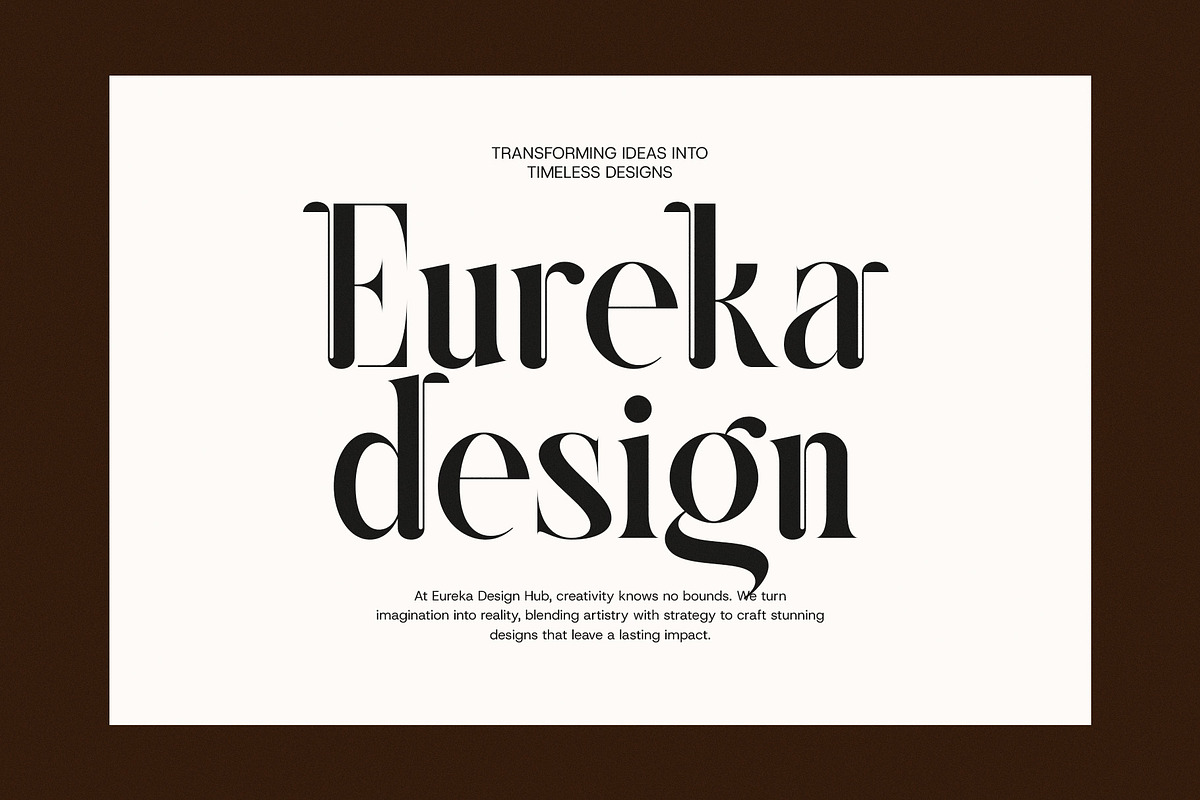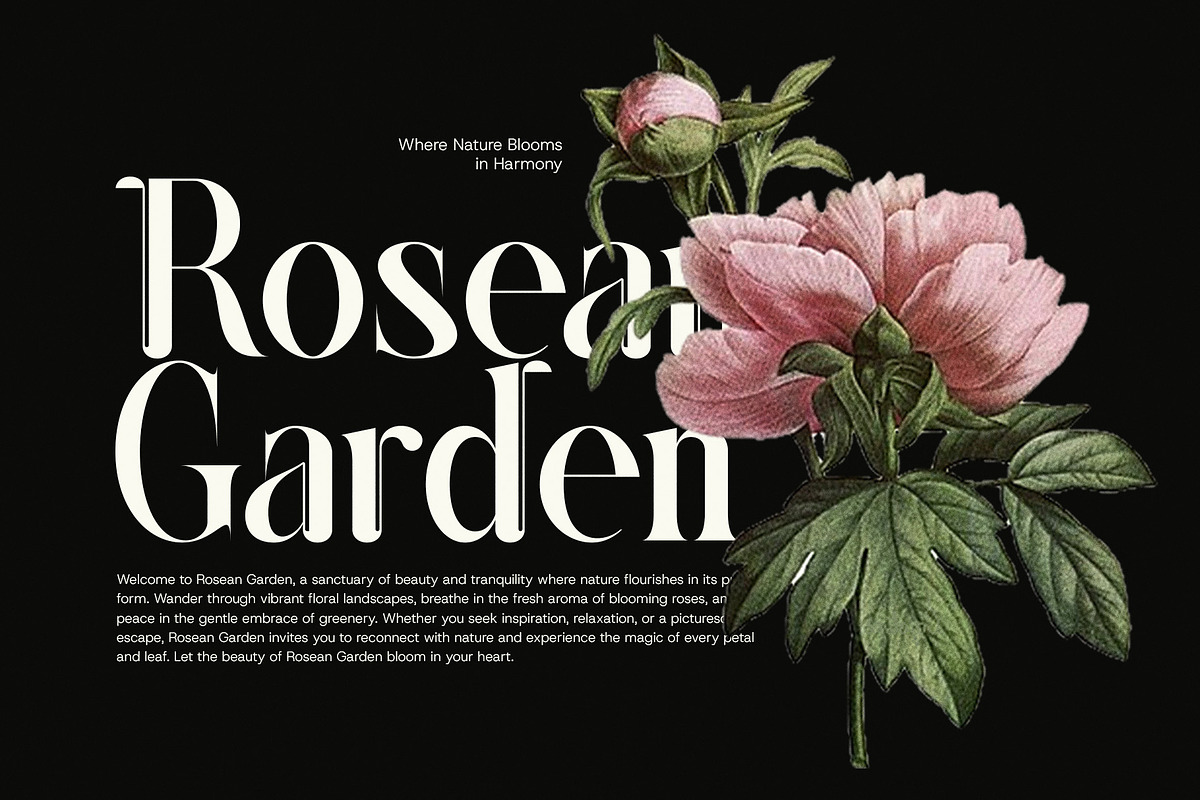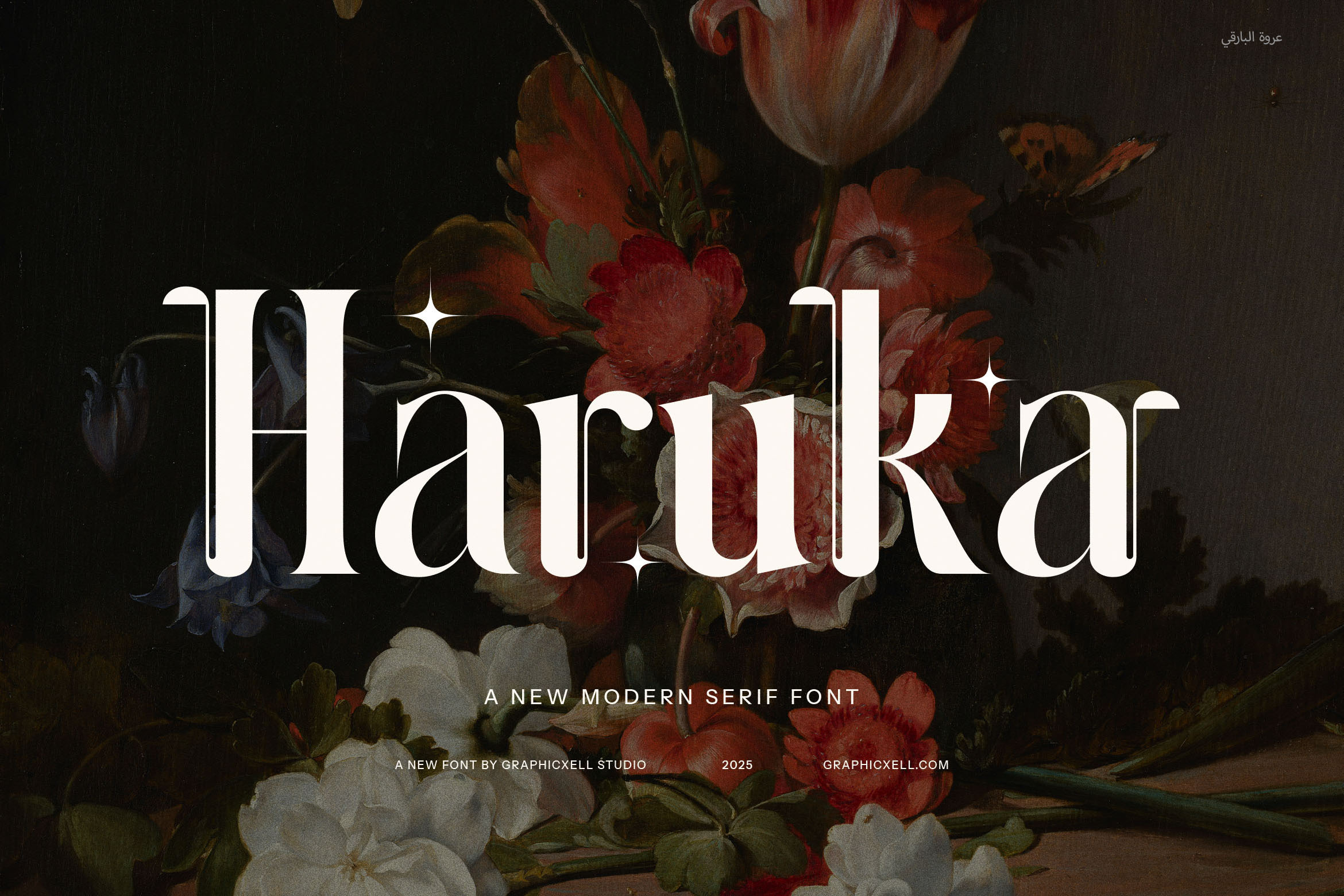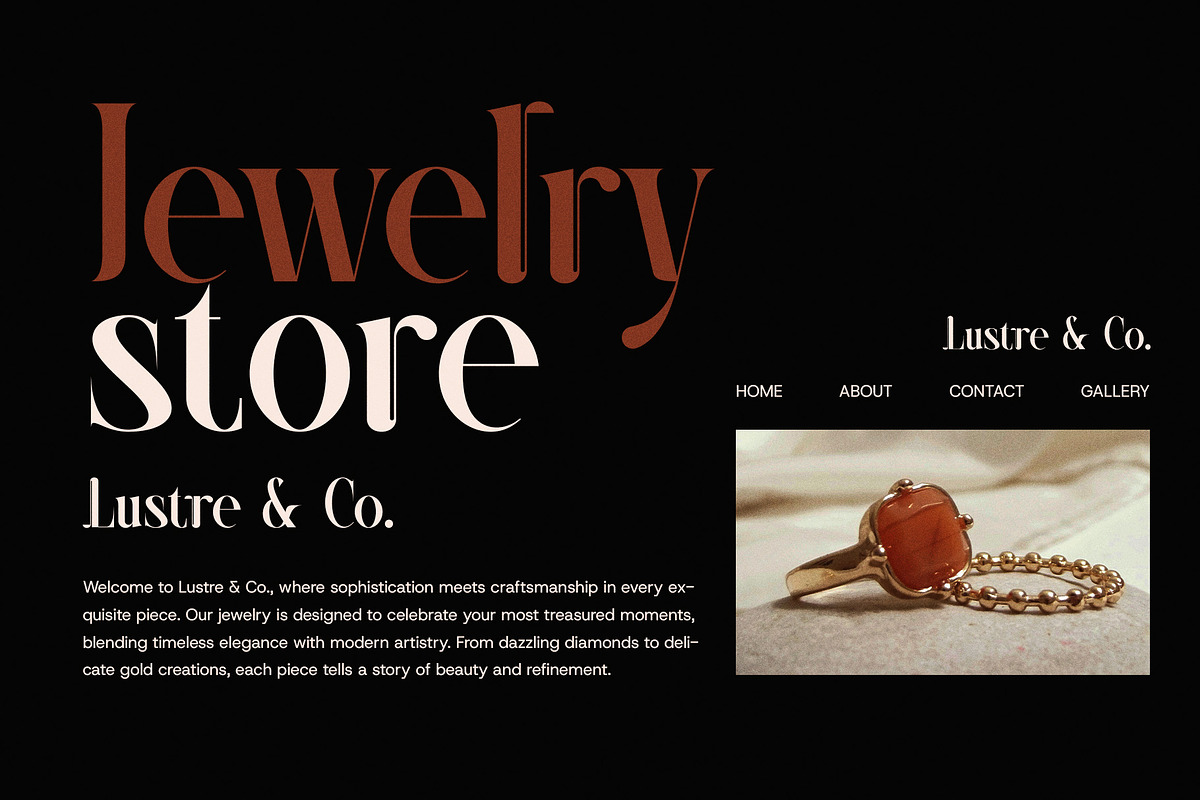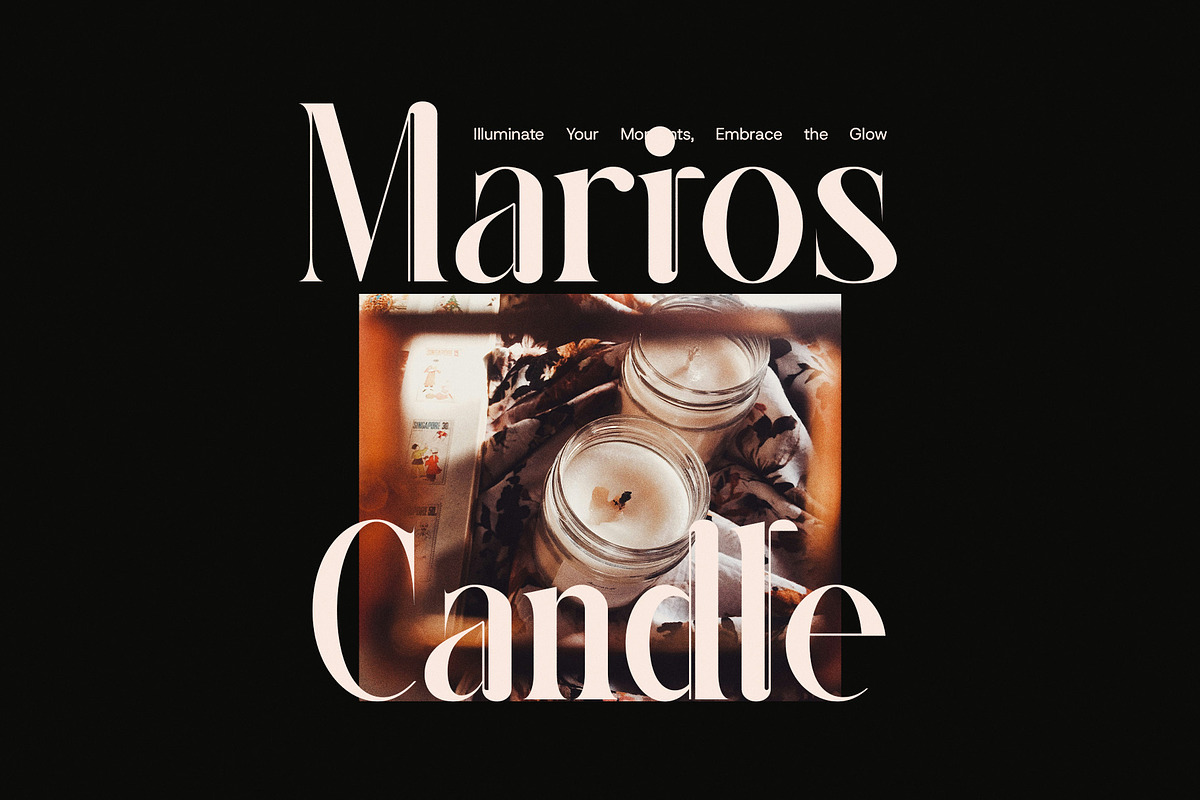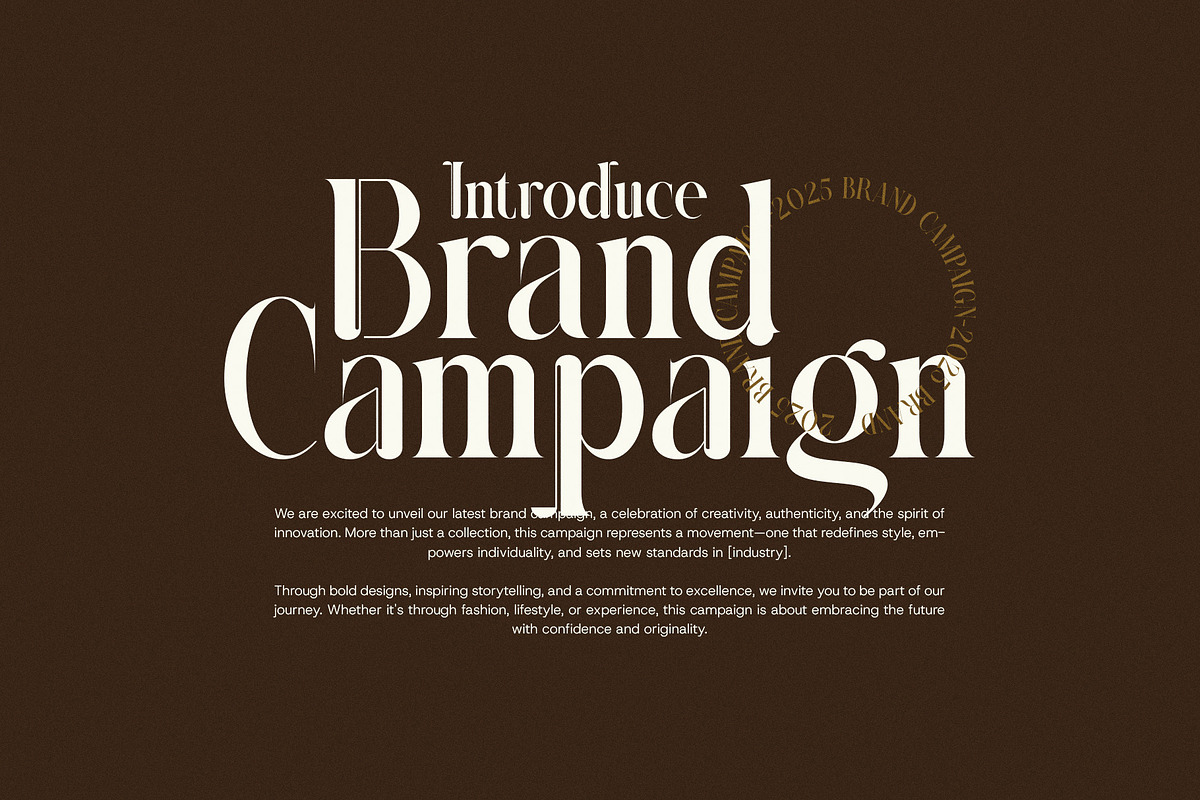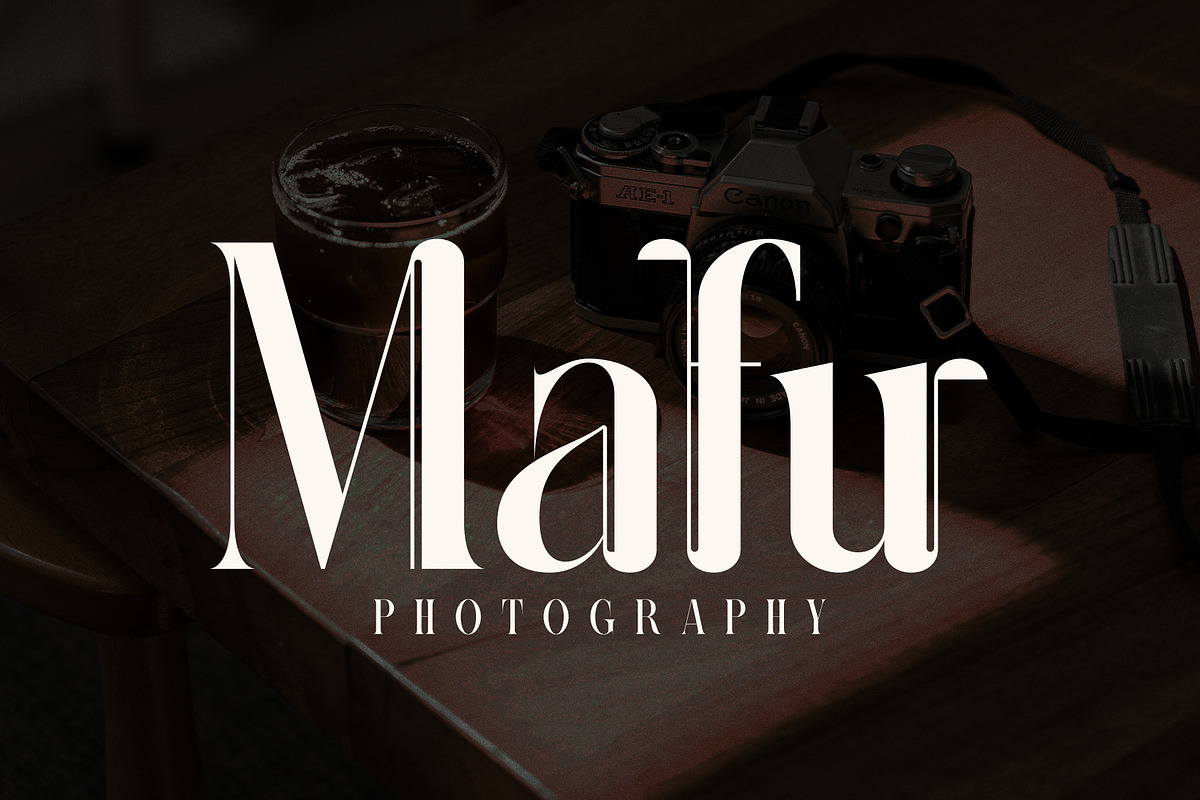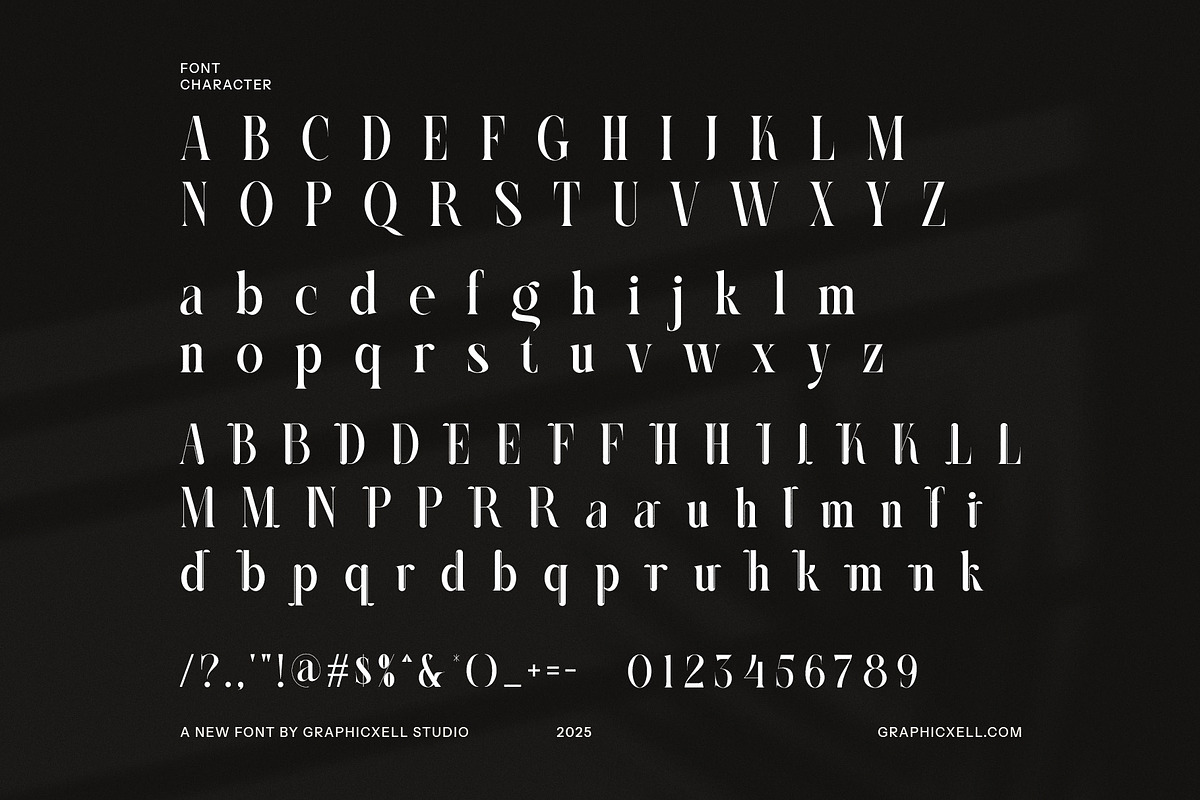
Haruka Elegant Serif Font
Haruka Elegant Serif is a refined and sophisticated typeface designed to bring timeless beauty to any project. With its graceful letterforms, delicate serifs, and expertly crafted ligatures, this font exudes luxury and class. The elegant curves and subtle contrast make it a perfect choice for high-end branding, stylish editorials, and modern website design.
What sets Haruka Elegant Serif apart is its collection of unique alternates and ligatures, offering creative versatility for designers who seek originality. Whether you're crafting a premium logo, designing upscale packaging, or creating eye-catching social media graphics, this font provides an effortlessly chic and polished aesthetic.
The balanced proportions and smooth flow of Haruka Elegant Serif make it ideal for luxury fashion, beauty, fine dining, and boutique businesses. It seamlessly blends contemporary sophistication with a classic touch, making it equally suitable for print and digital applications. From elegant magazine layouts to premium product packaging, this font adds a touch of refinement to every design.
With its modern yet timeless appeal, Haruka Elegant Serif is the go-to typeface for those who appreciate fine details and exquisite typography. It’s more than just a font—it’s a statement of elegance, making every word look effortlessly stylish and beautifully composed. Elevate your designs with the charm and grace of Haruka Elegant Serif.